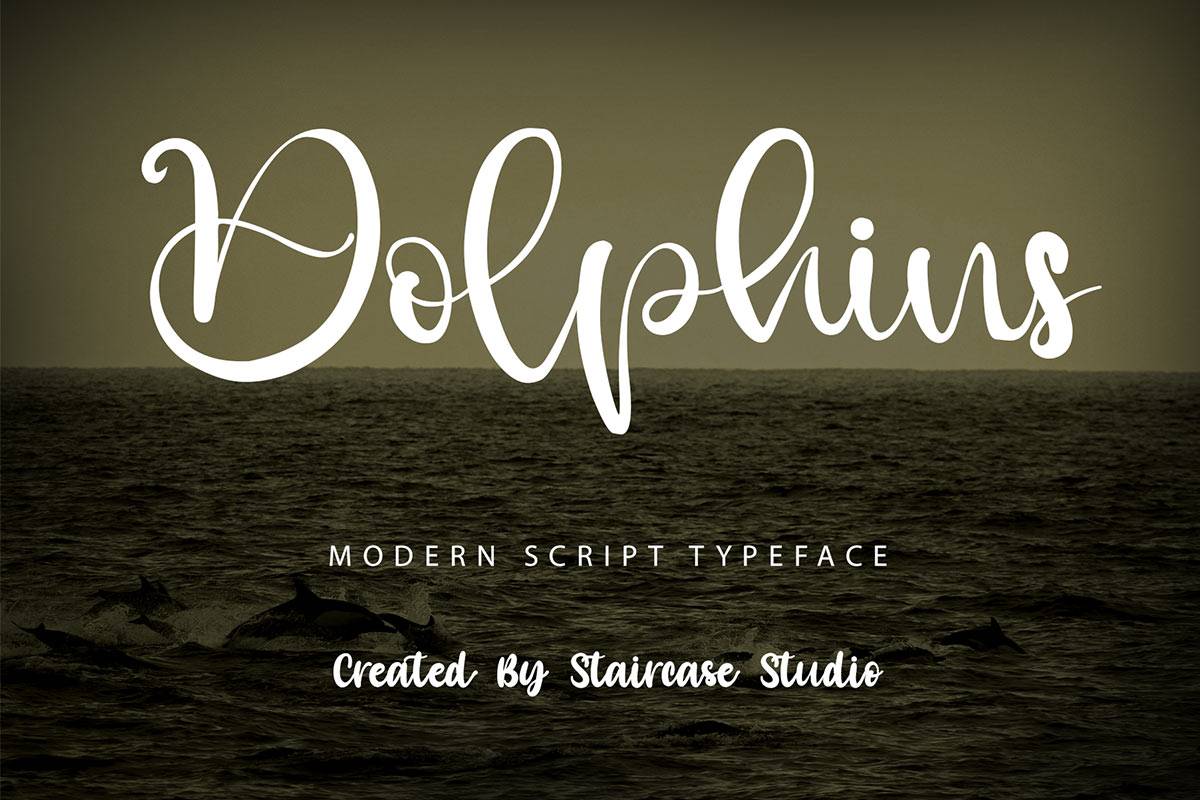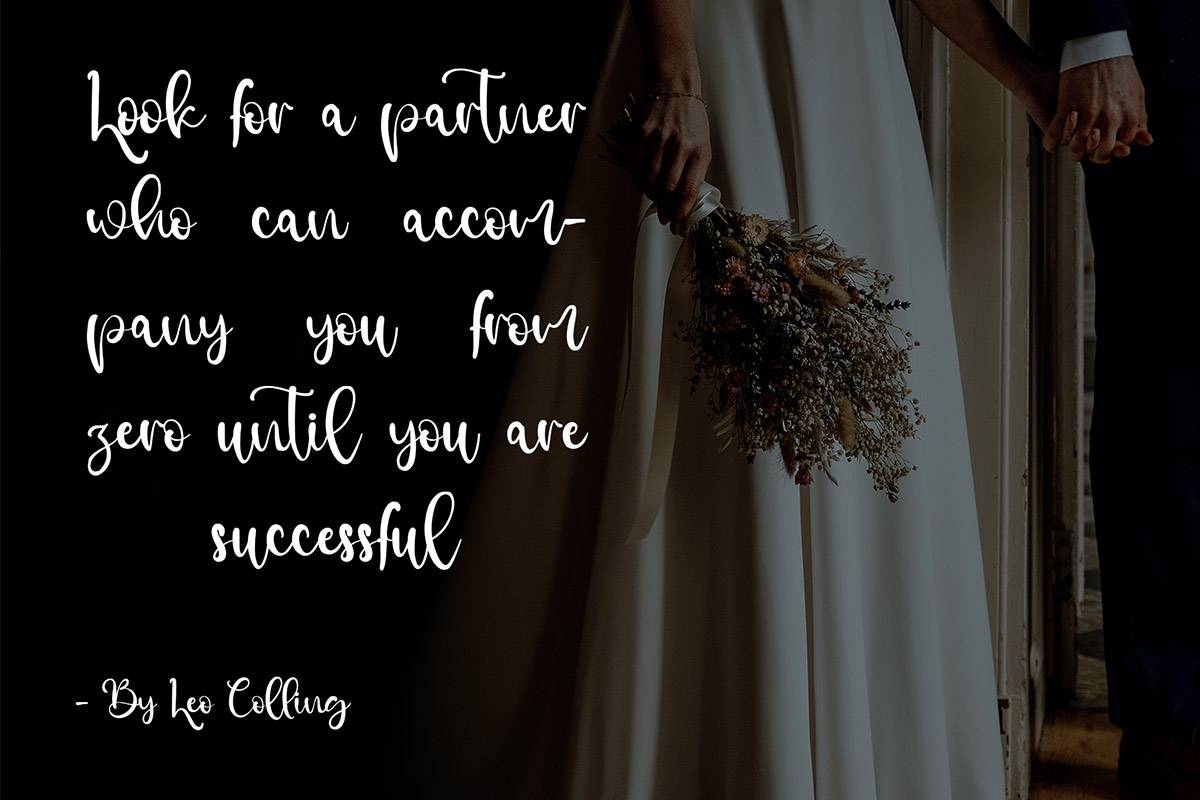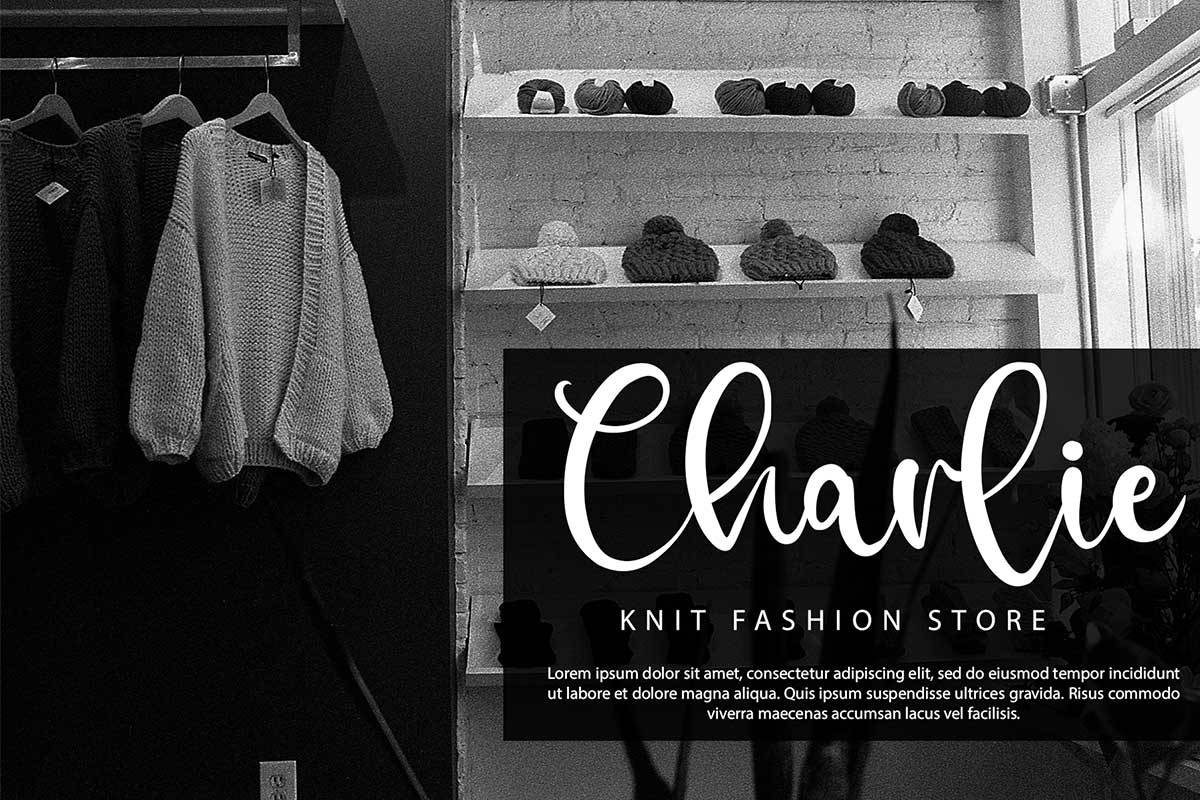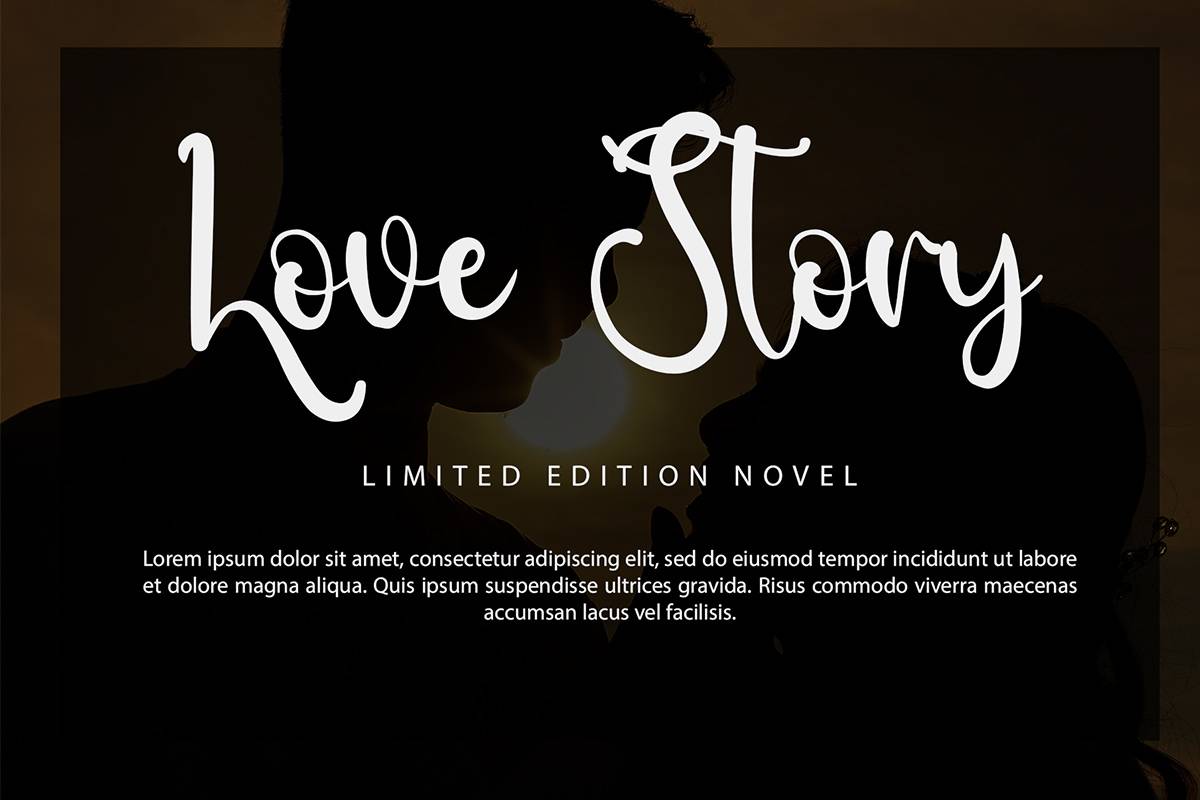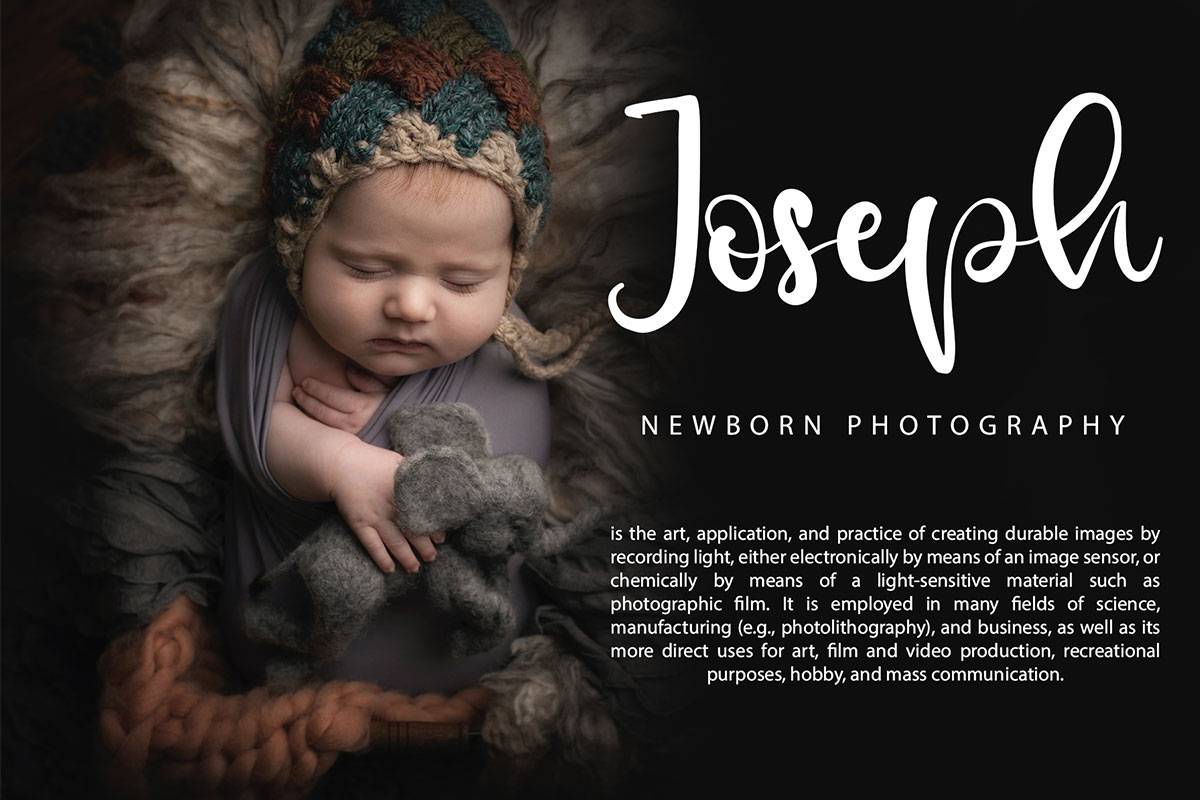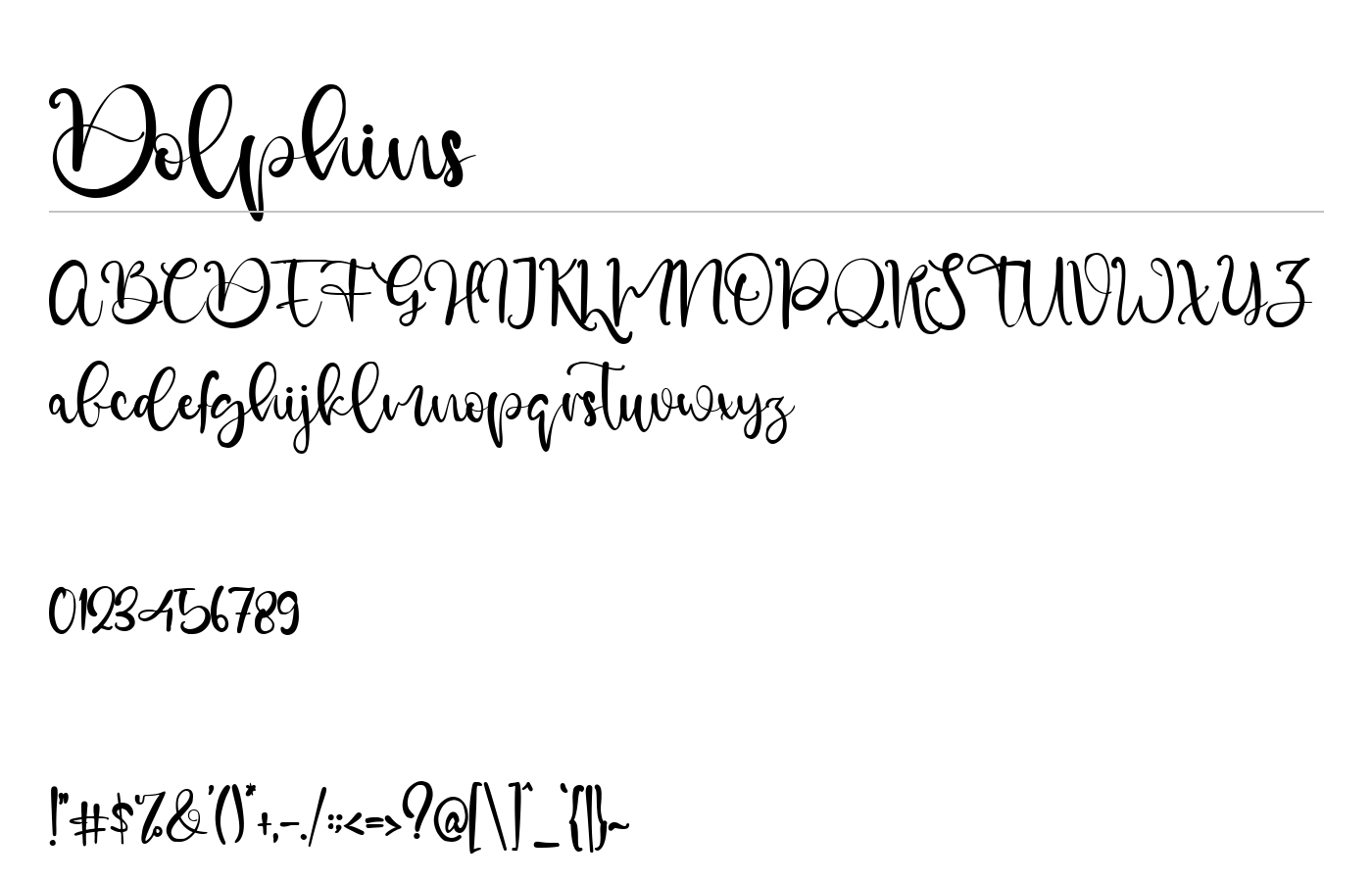
Dolphins Font is a playful and elegant script with a hand-drawn feel, featuring graceful, flowing letterforms and unique swirls that add personality and charm. Its light weight and airy structure make it perfect for creative branding, invitations, and headlines where a whimsical, artistic touch is desired. This font works well in designs aiming to convey a friendly, approachable, and stylish mood.
Dolphins Font
About Dolphins Font
| Font family | Dolphins Font |
| Release date | 2021-09-14 |
| Designer | Staircase Studio |